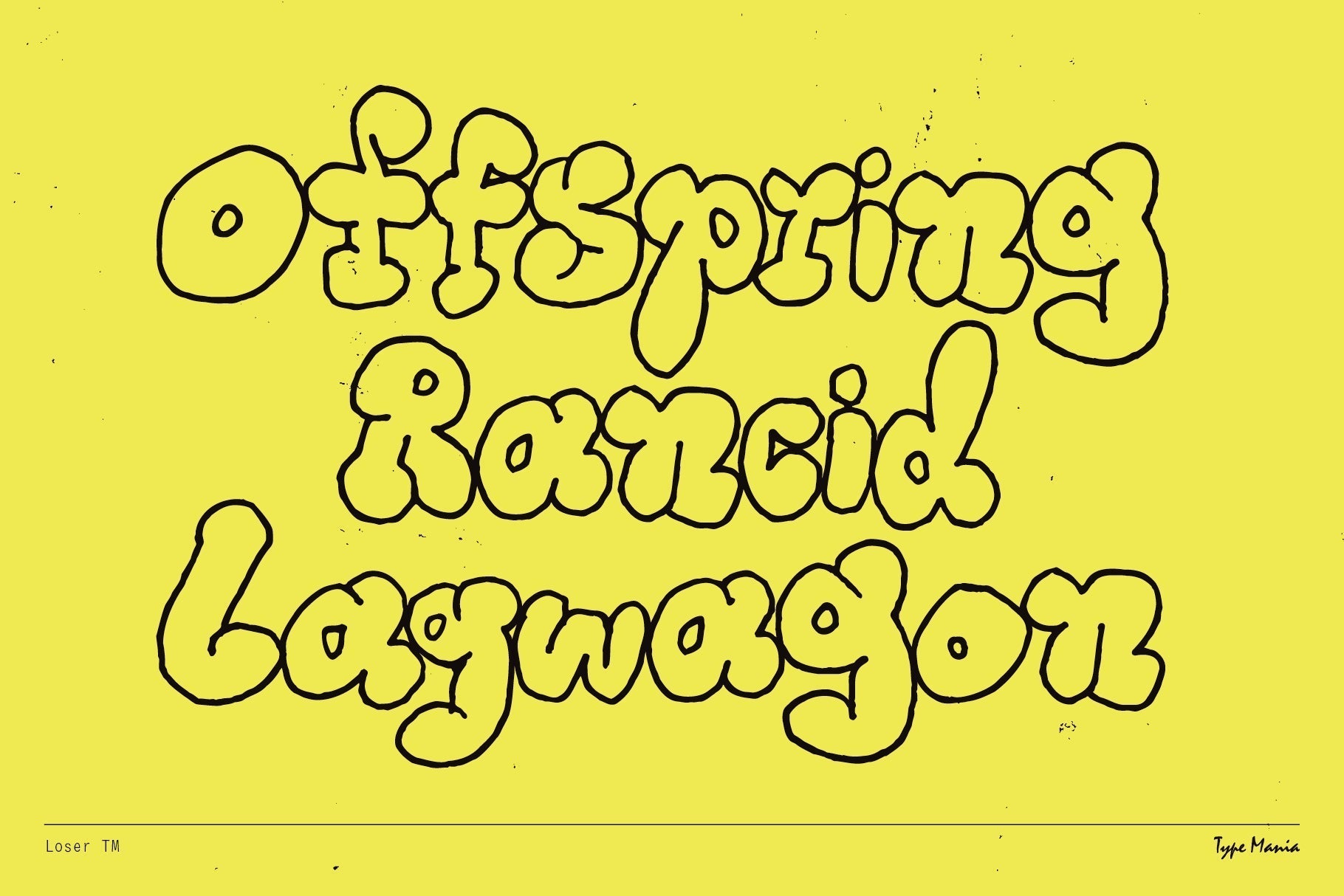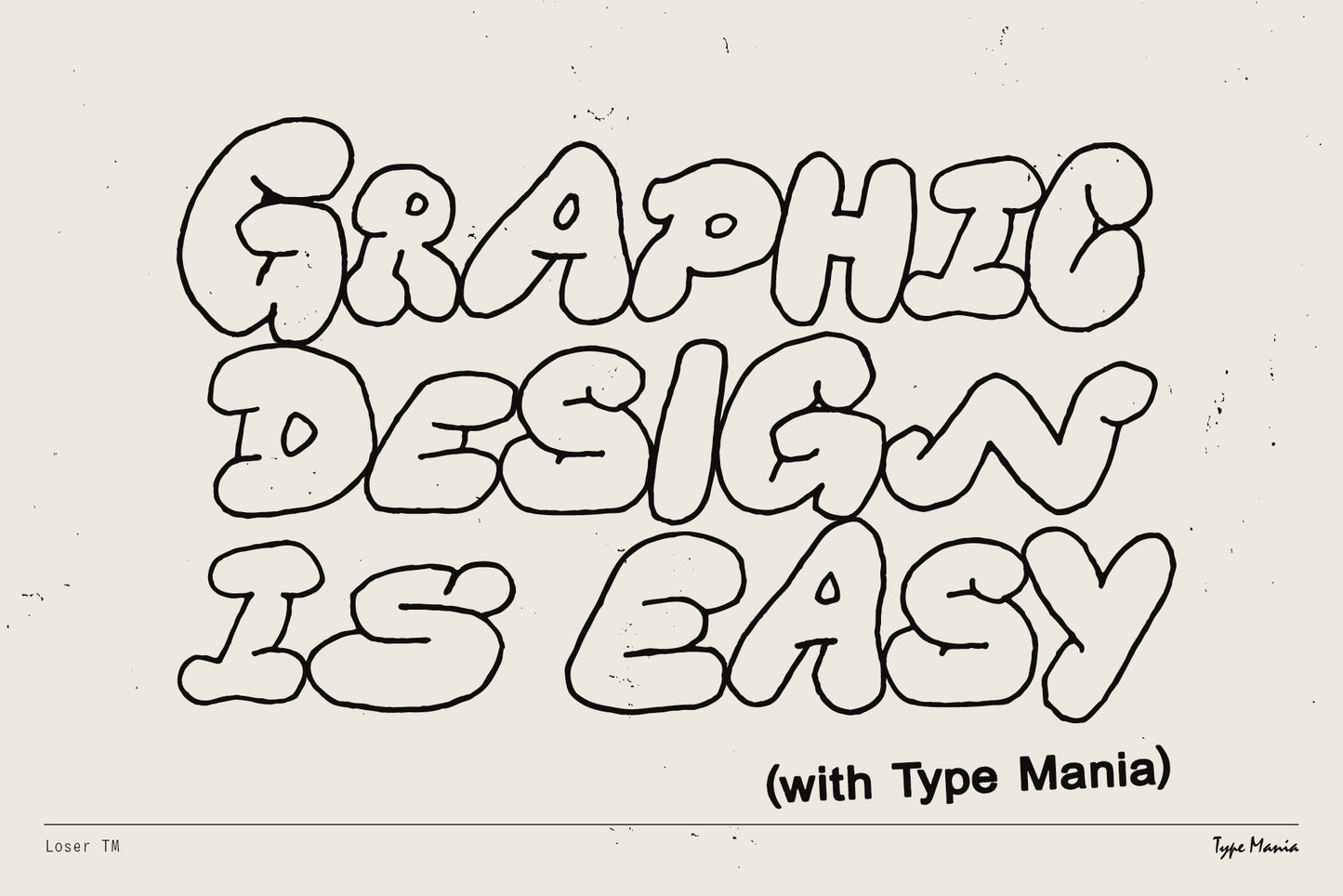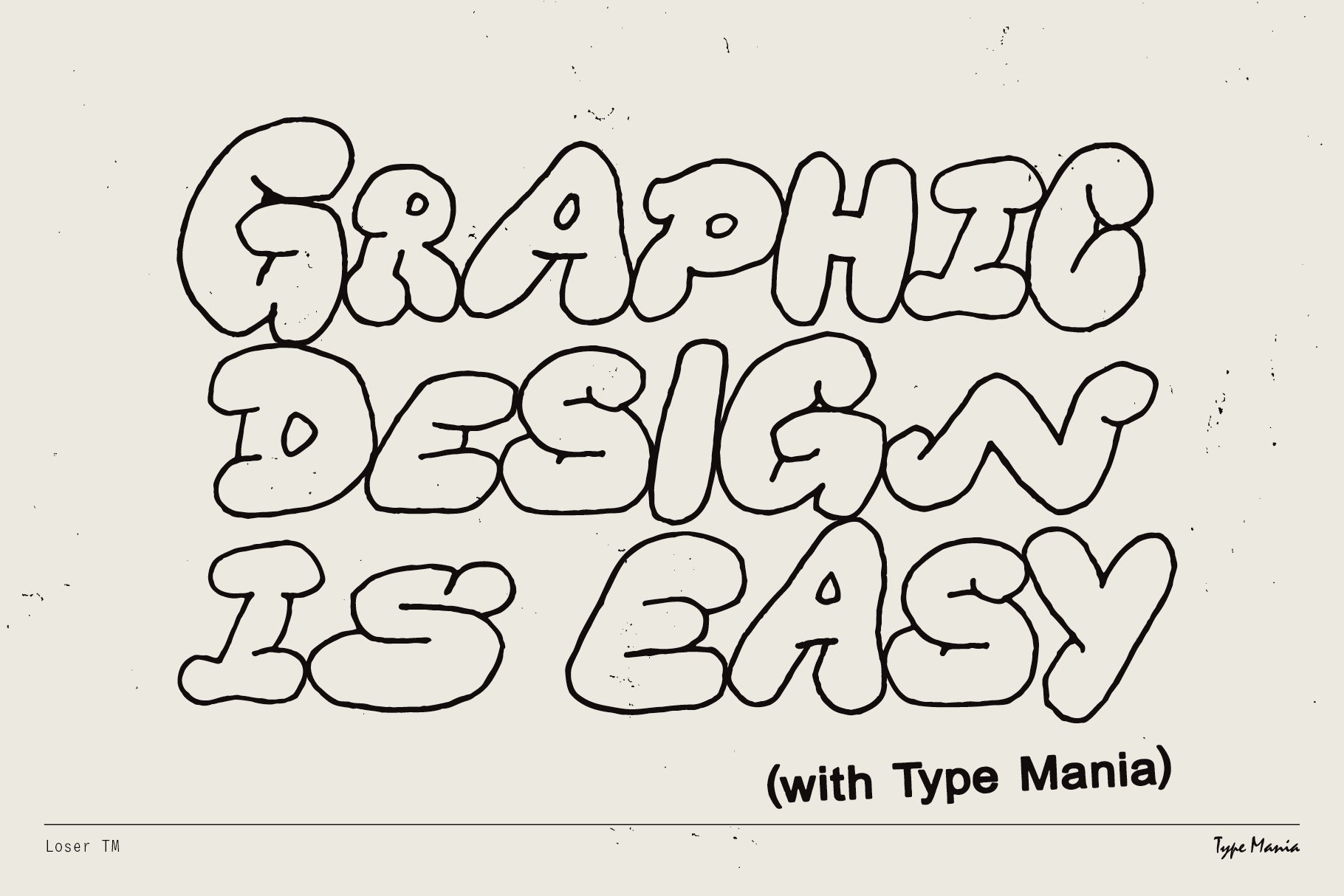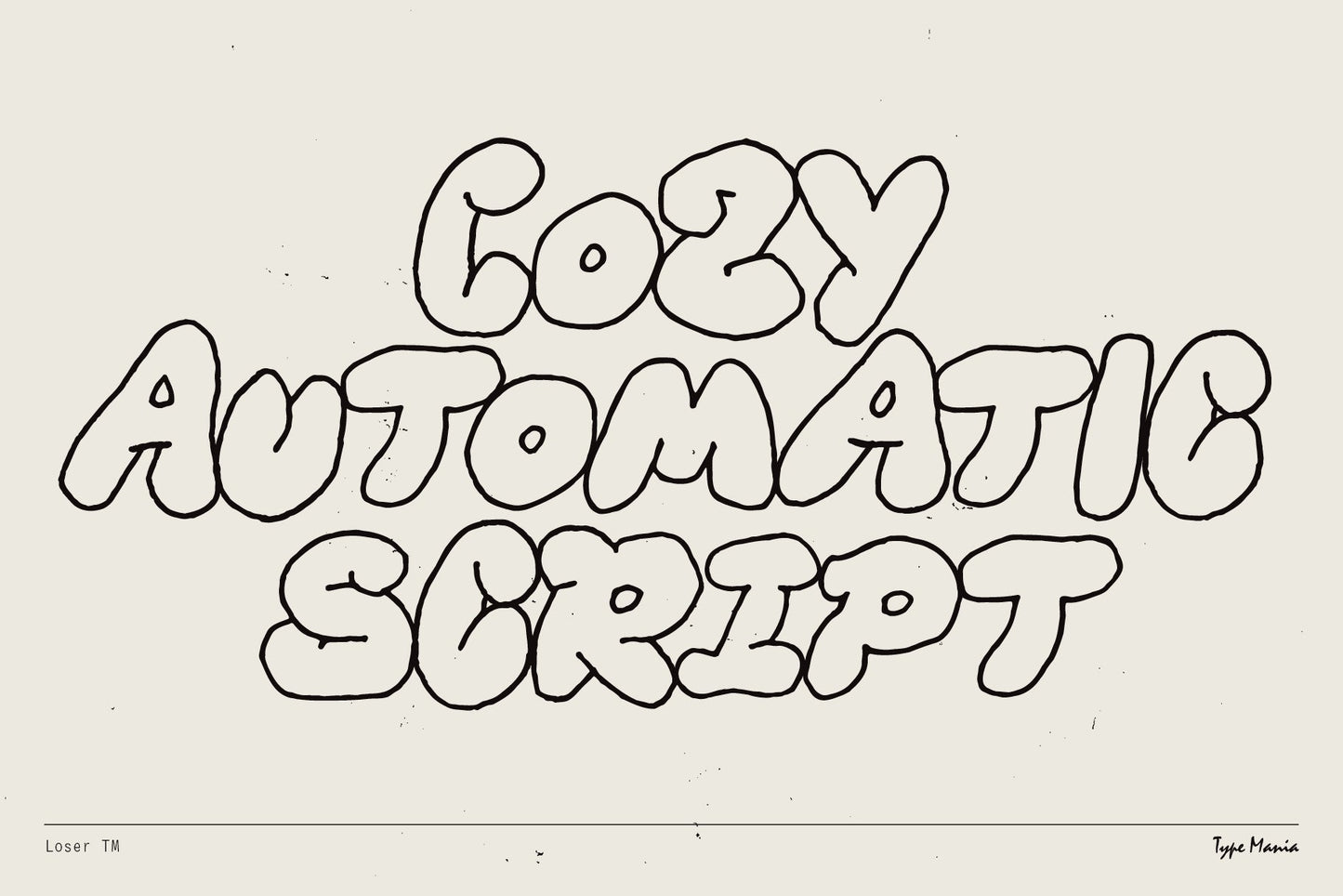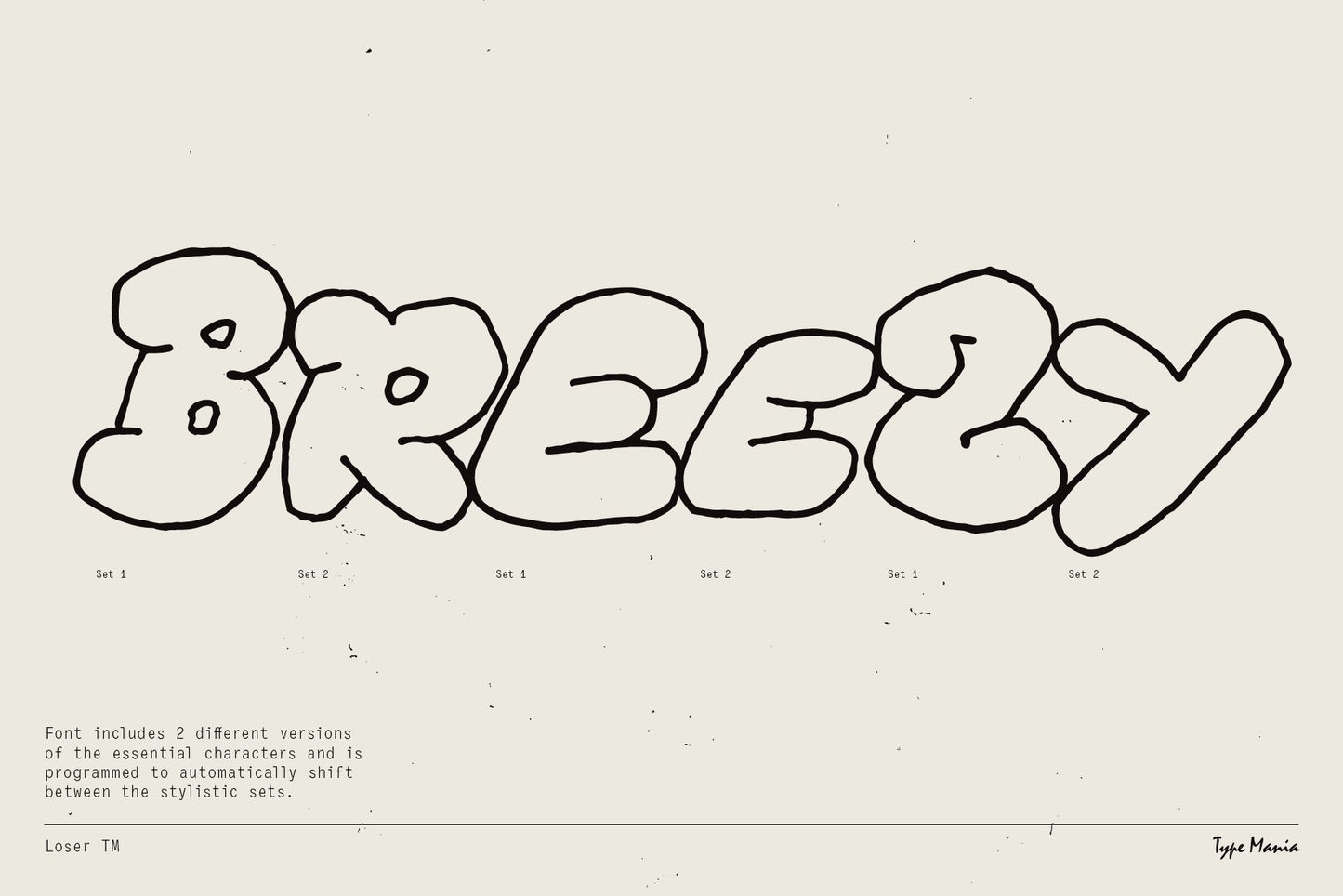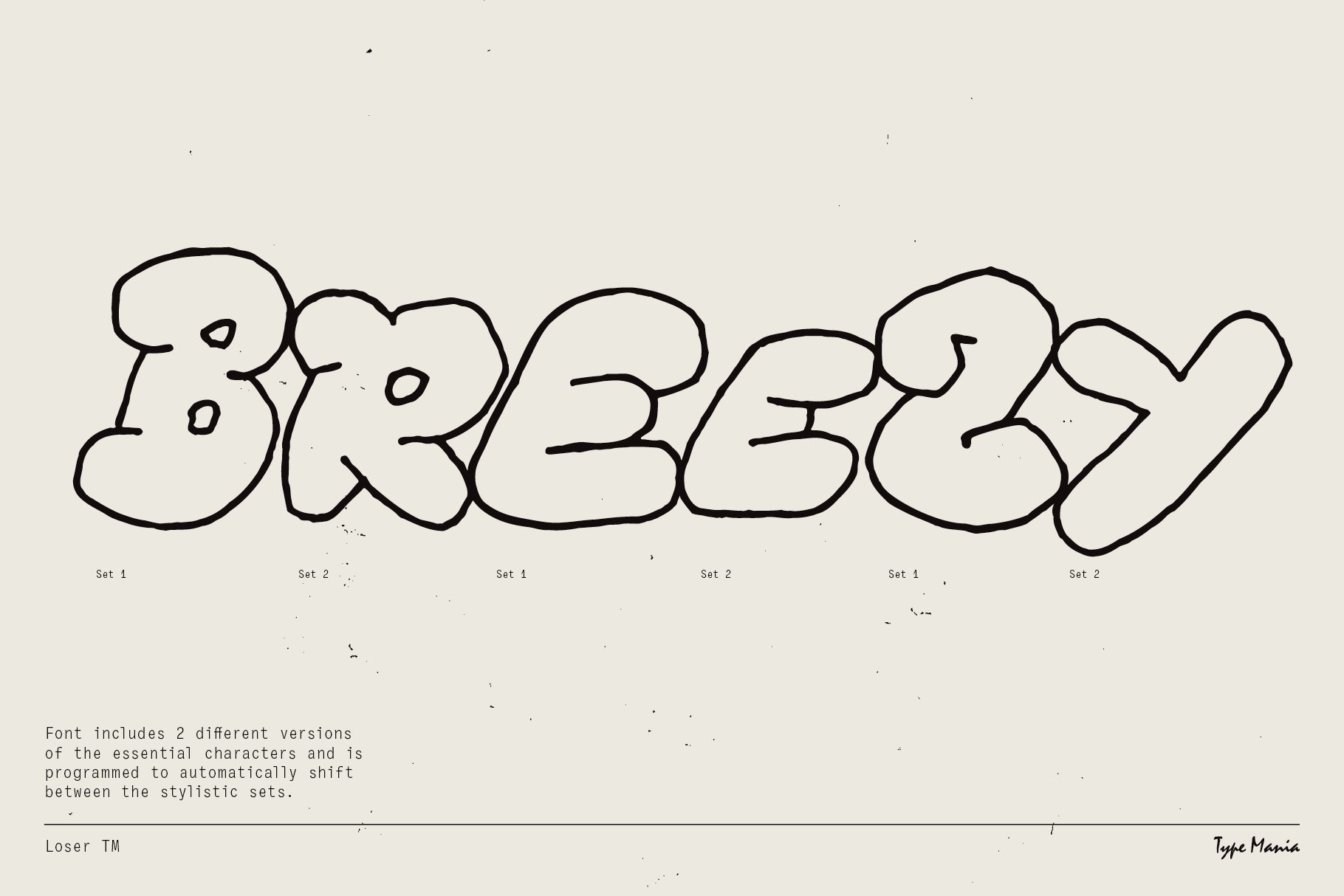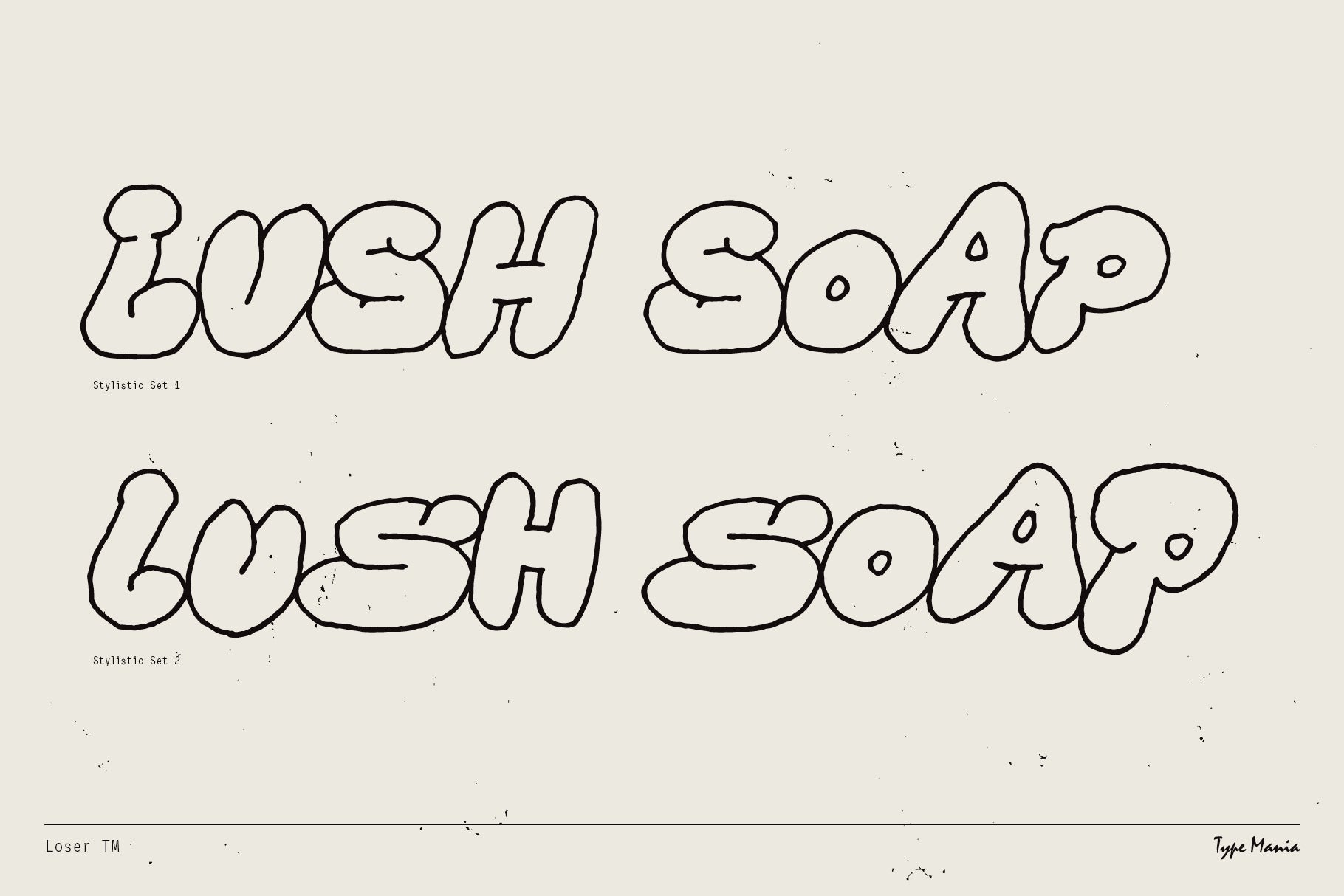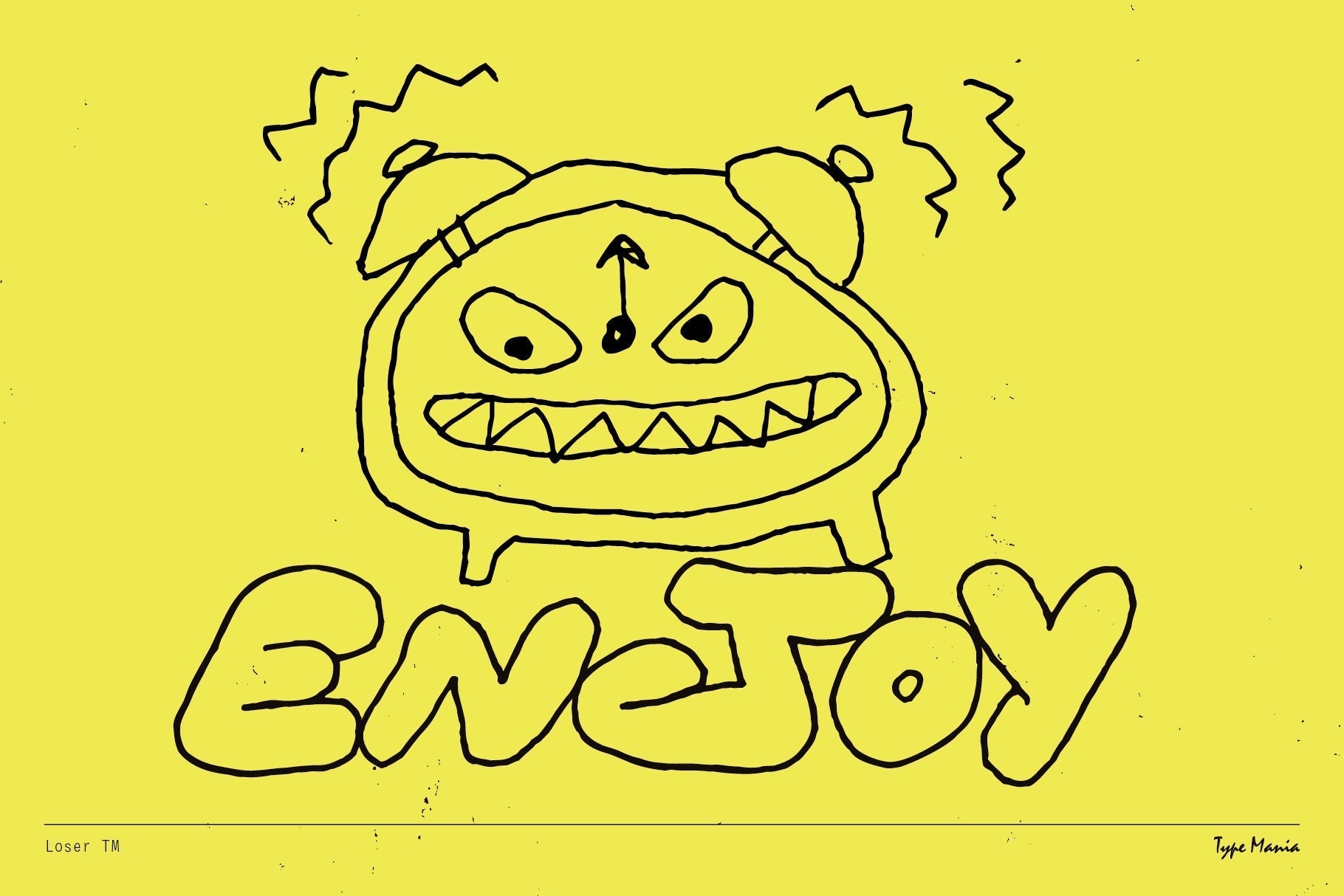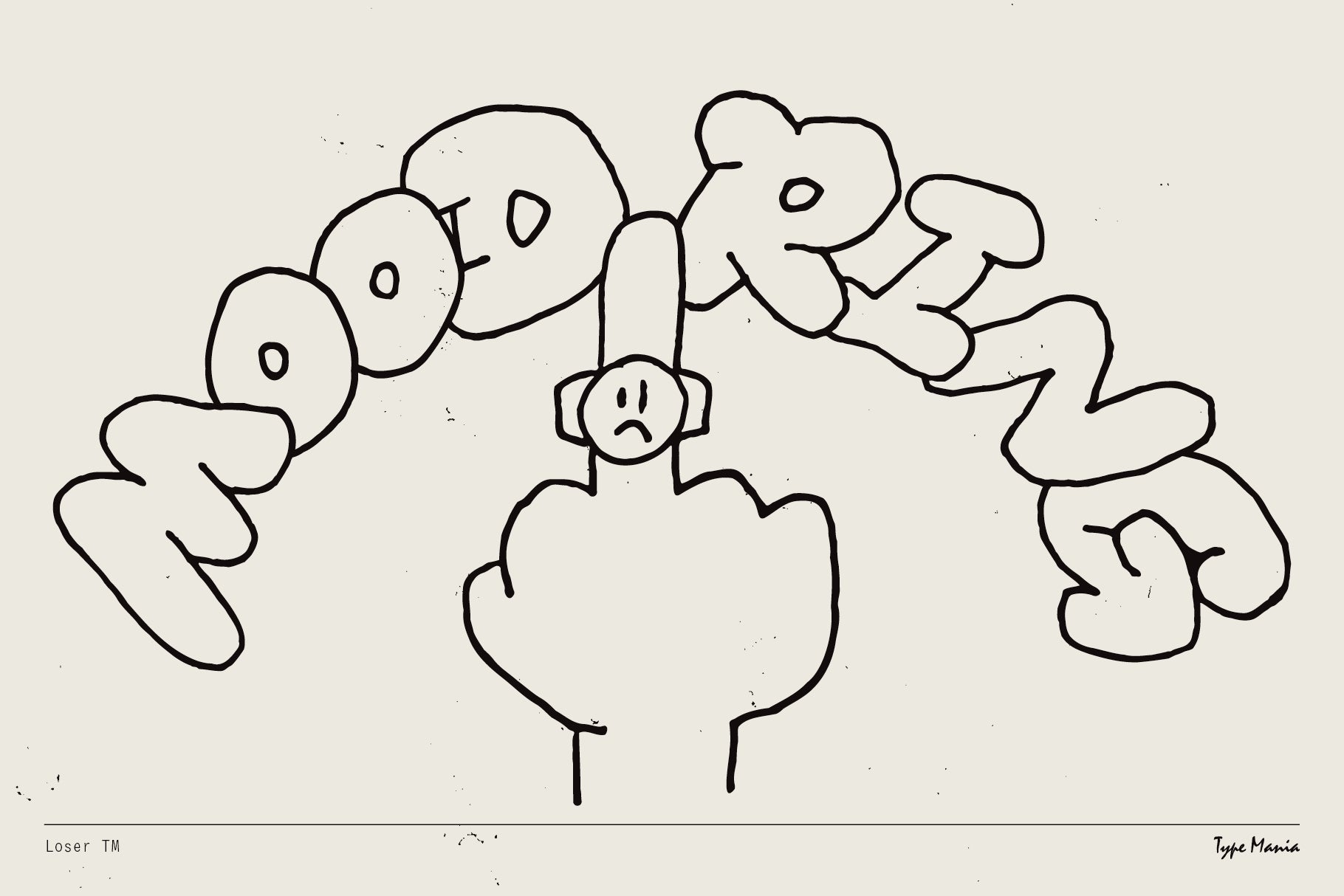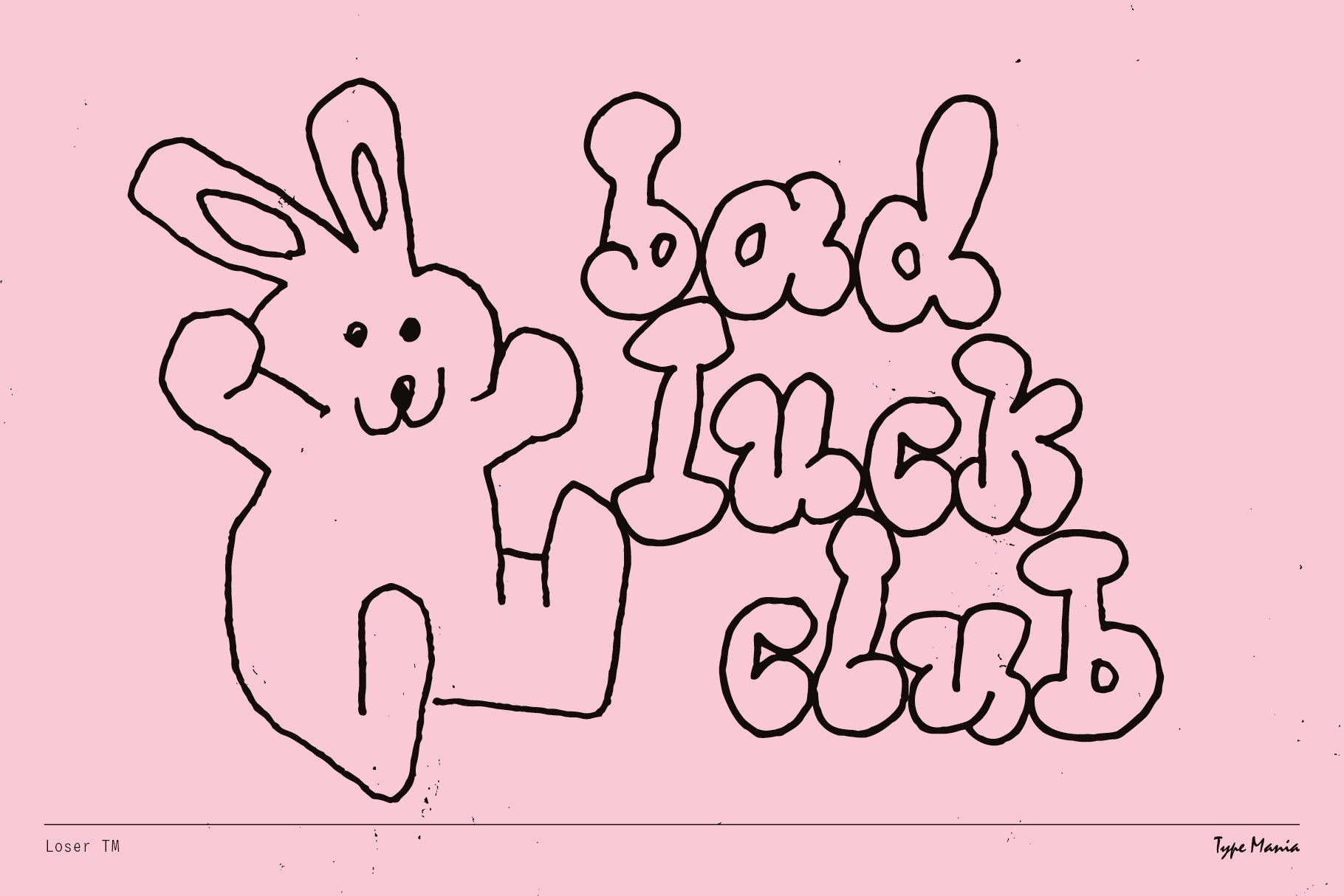
Say hello to Loser TM – the scribbled, bubbly font from Type Mania. Whether you’re crafting social media graphics, quirky logos, or personal branding, this font brings a whimsical touch with its bold, rounded letters and handwritten feel. Remember: it’s more important to stand out than to blend in.
OpenType features
2 stylistic sets
The font is programmed to automatically shift between the stylistic sets